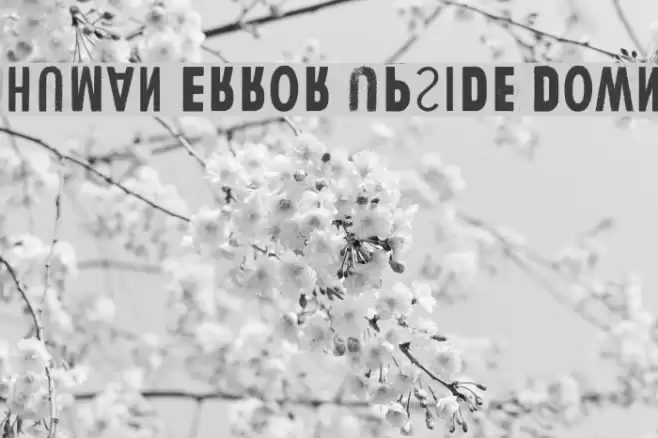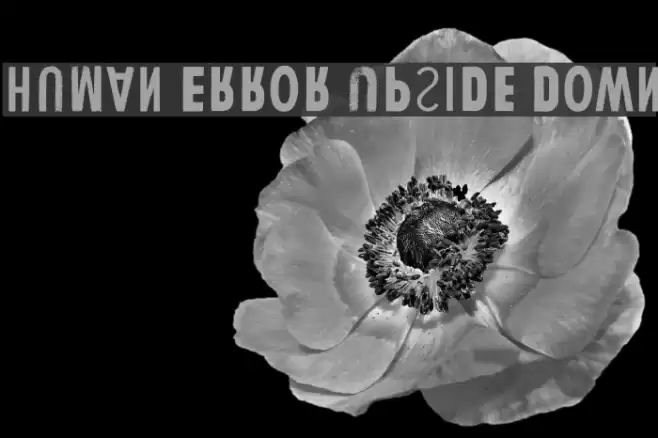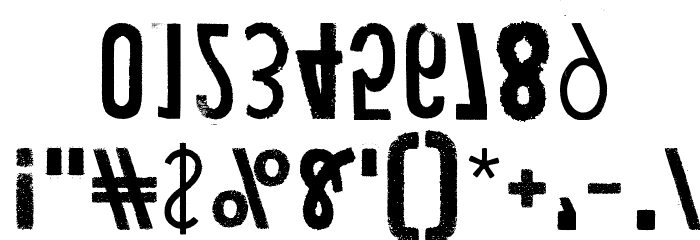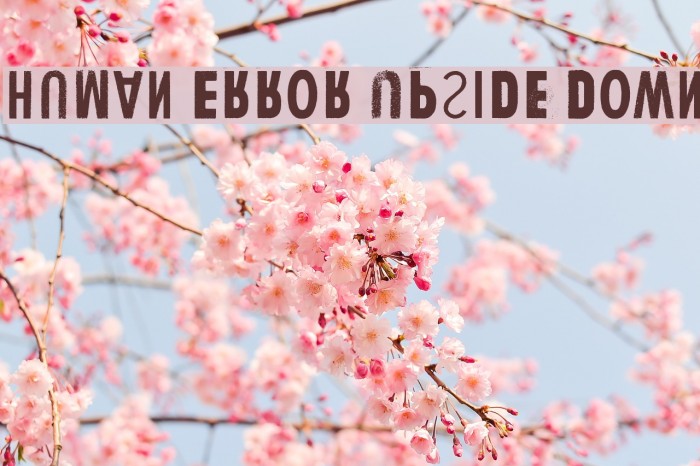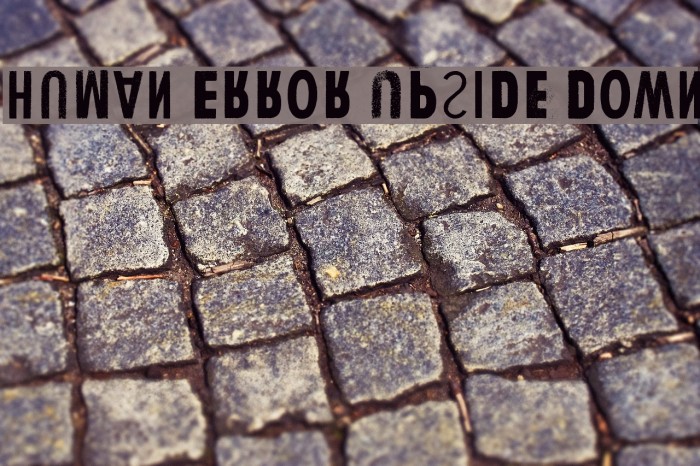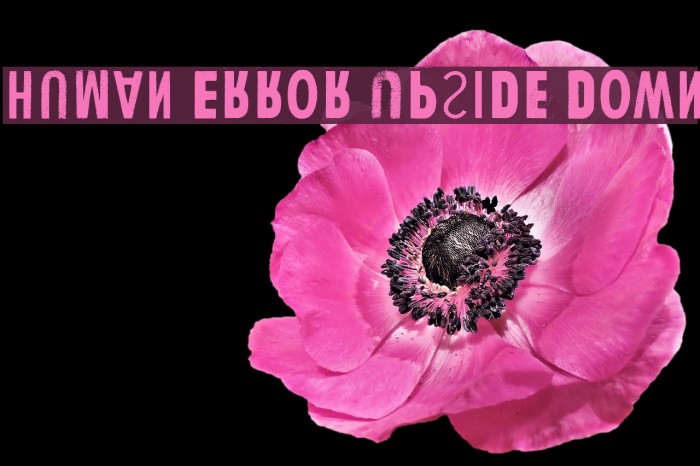
Human Error Upside Down Font
Human Error Upside Down Description
This font features a bold, distressed style with a vintage, grunge aesthetic. The characters are uppercase and lowercase with a rough texture, giving them a worn, industrial look. The letters are slightly condensed, with some irregularities in the edges, enhancing the rugged appearance. The numbers and special characters follow the same design, maintaining consistency across the set. This font is ideal for projects that require a strong, impactful visual statement, such as posters, album covers, or branding for edgy, alternative products.
A bold, distressed font with a vintage, grunge aesthetic from Distorted Eroded fonts.
- Proposed Projects: Ideal for posters, album covers, and edgy branding projects.
- Overall Style: Vintage